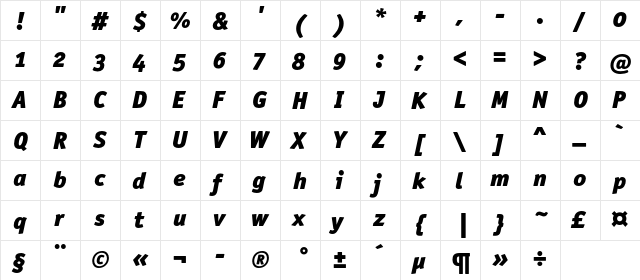
OfficinaSansBlackOSC Italic
Design Context for OfficinaSansBlackOSC Typeface
OfficinaSansBlackOSC is a composed and adaptable typeface that performs quietly and consistently across a wide range of design contexts. The dynamic lean of this cut emphasises speed and emphasis in any layout.
Pro Tip: Use OfficinaSansBlackOSC for emphasis, pull quotes, and subheadings where its slanted energy can add rhythm to the layout.